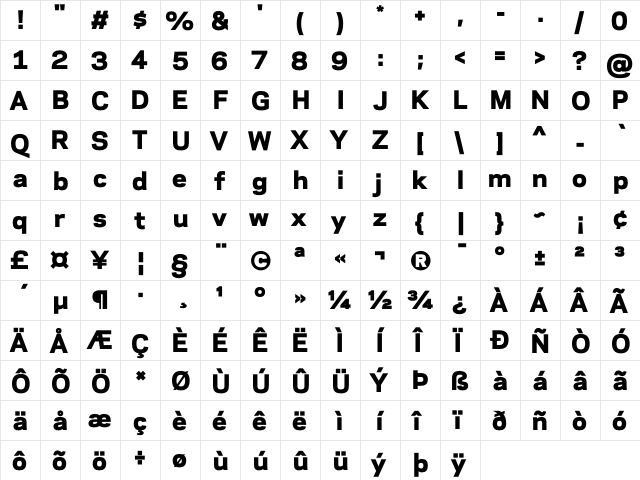
Galaxie Polaris Heavy
Design Context for Galaxie Polaris Typeface
Galaxie Polaris is a composed and adaptable typeface that performs quietly and consistently across a wide range of design contexts.
Pro Tip: Pair Galaxie Polaris with a font of contrasting weight or personality to build a more expressive typographic hierarchy.